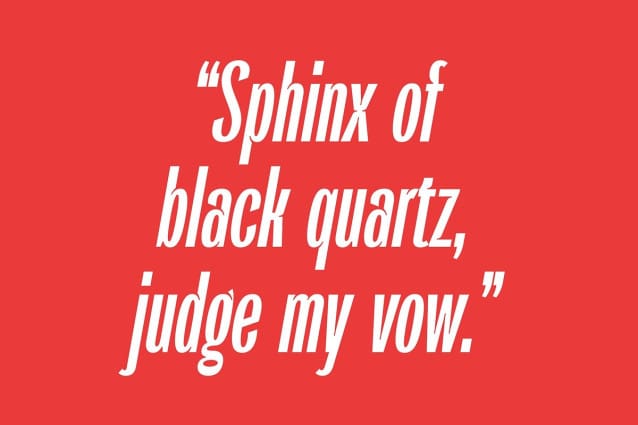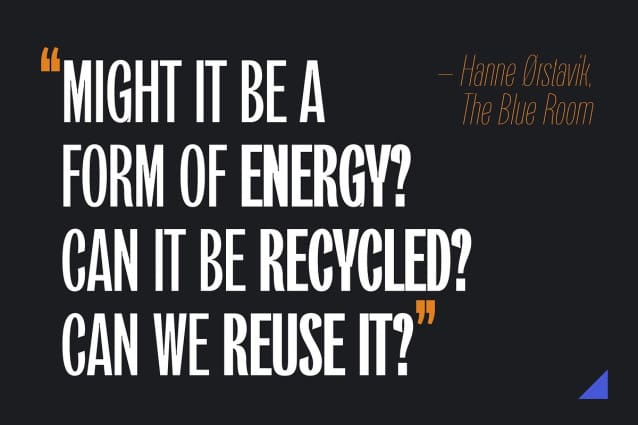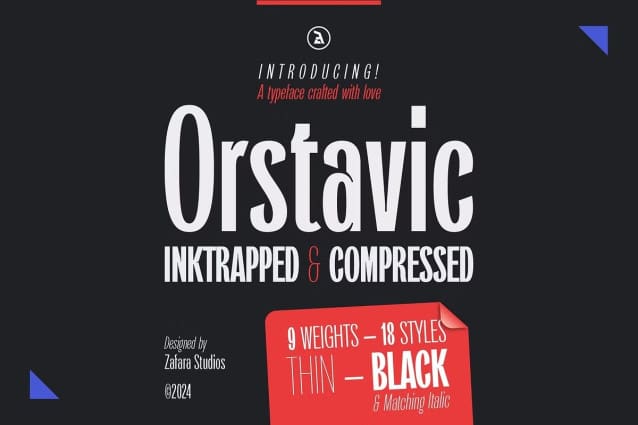
Orstavic Font
Orstavic Font is a powerful & tall inktrap and compressed font with a modern look for any kind of project. Tall, compressed letterforms can help you stand out to retain attention and appear bold. This font is very suitable for news titles, headlines, logos, websites, print media such as flyers, brochures, magazines, and all kinds of purposes that are suitable for this font.